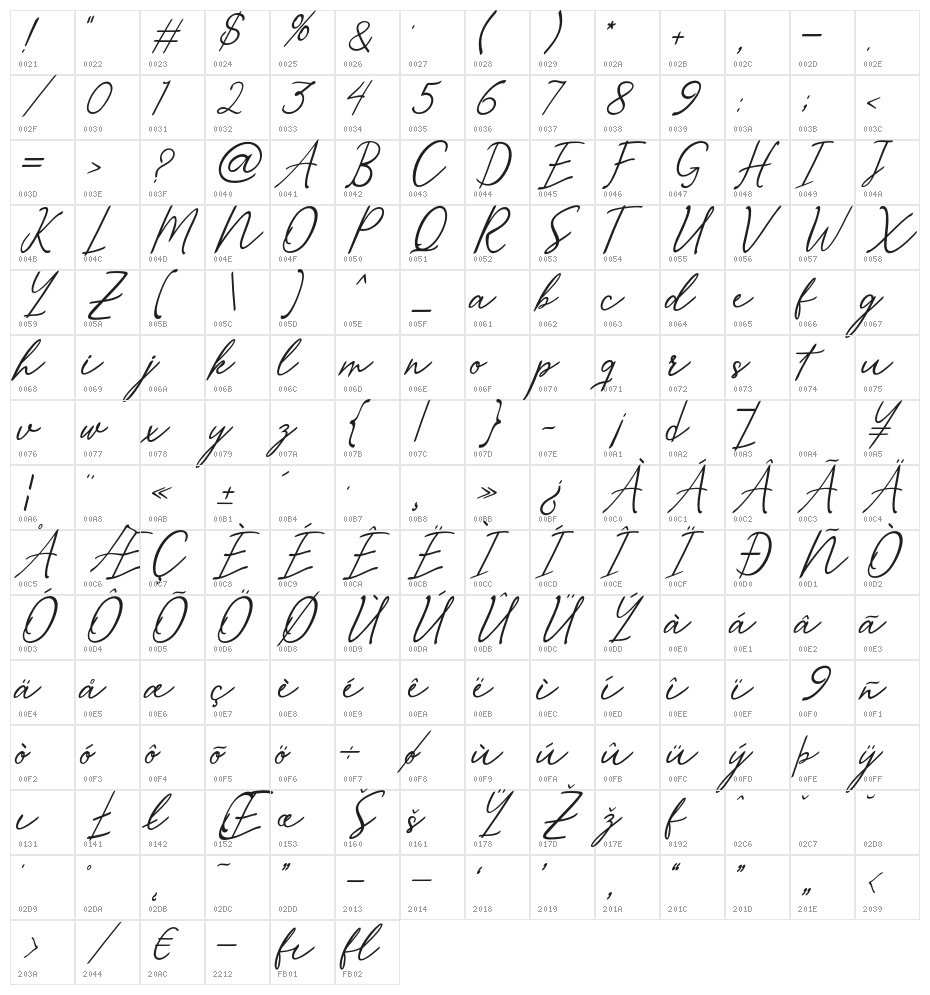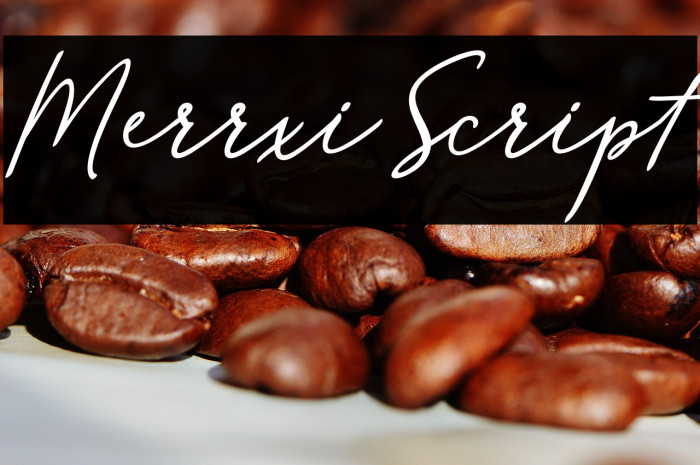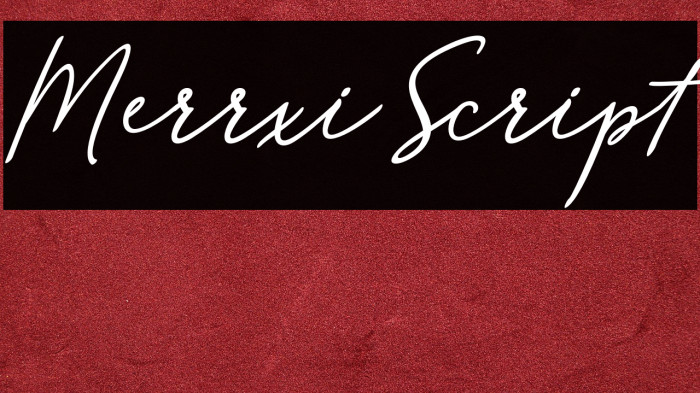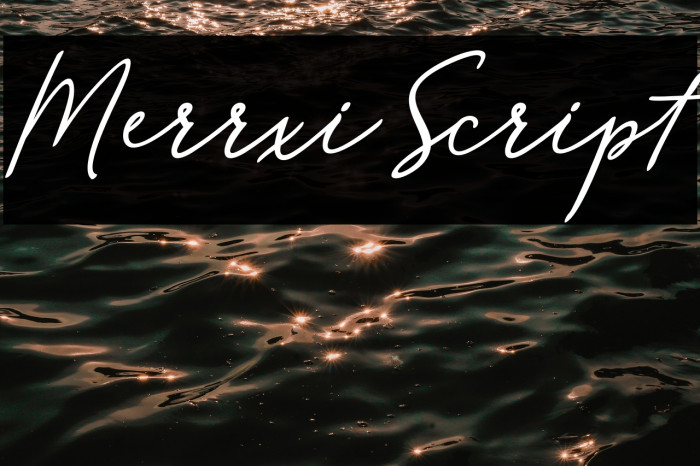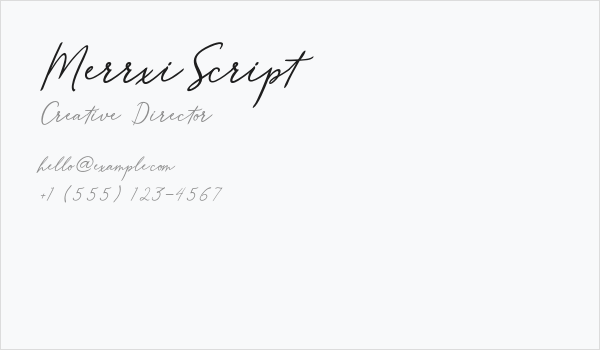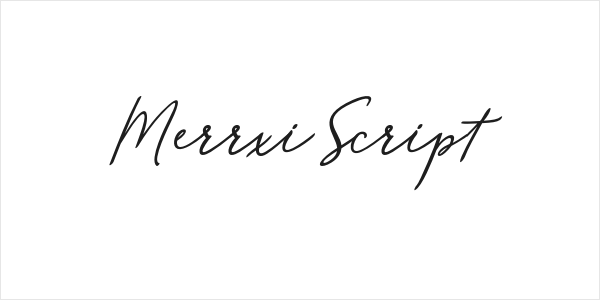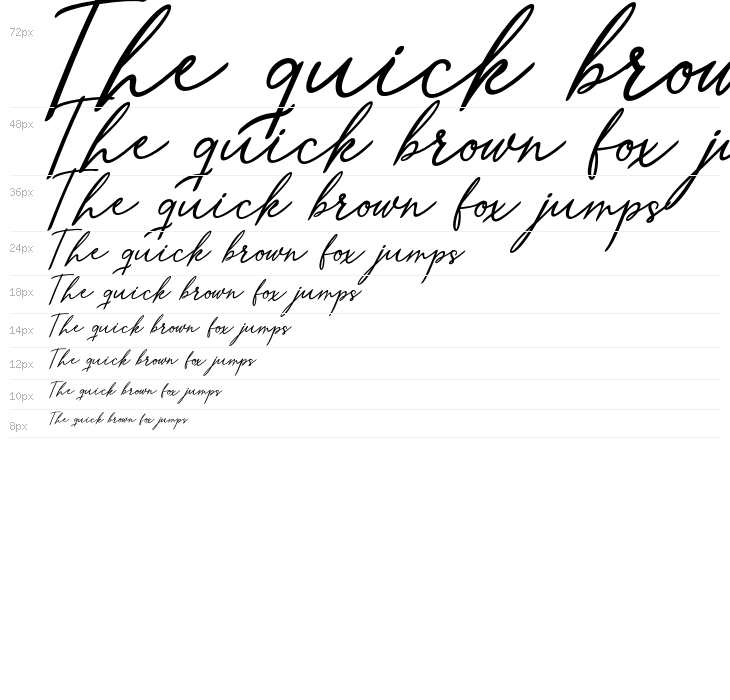
MerrxiScript Font
MerrxiScript Description
This elegant script font features a fluid and graceful style, reminiscent of traditional calligraphy. The uppercase letters are slightly more structured, with a gentle slant and smooth curves that create a sense of sophistication. The lowercase letters flow seamlessly, with connected strokes that enhance the font's cursive nature. The numerals maintain the same fluidity, ensuring consistency throughout. Special characters are thoughtfully designed to match the overall aesthetic, making this font versatile for various applications. Its delicate lines and artistic flair make it suitable for projects that require a touch of elegance and personal expression.
| Proposed Projects | Wedding invitations, greeting cards, personal branding, elegant logos, and artistic quotes. |